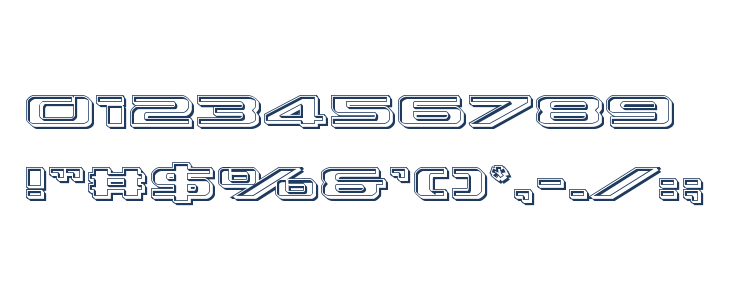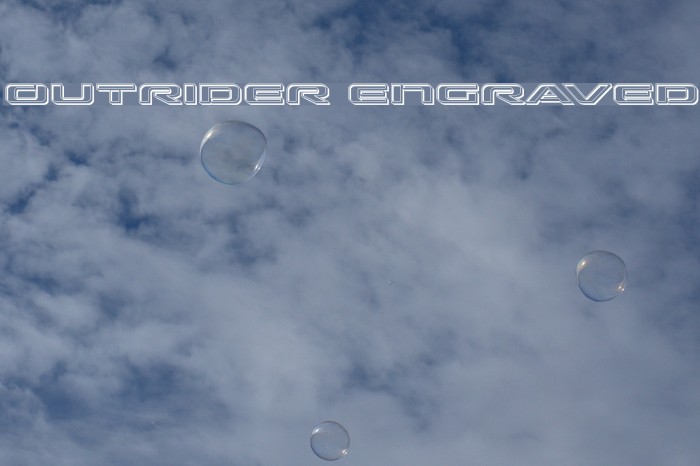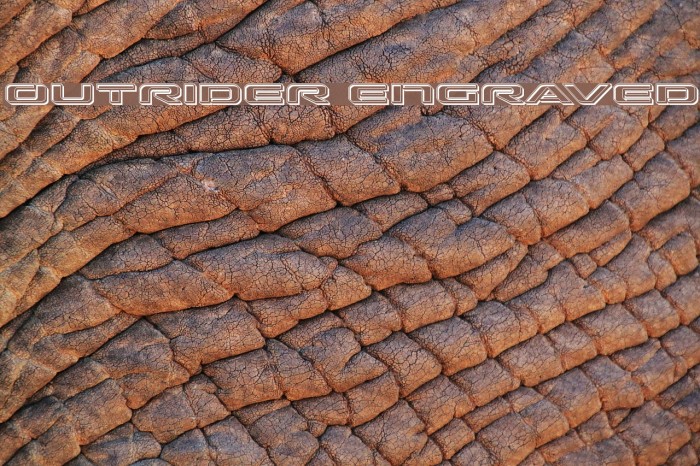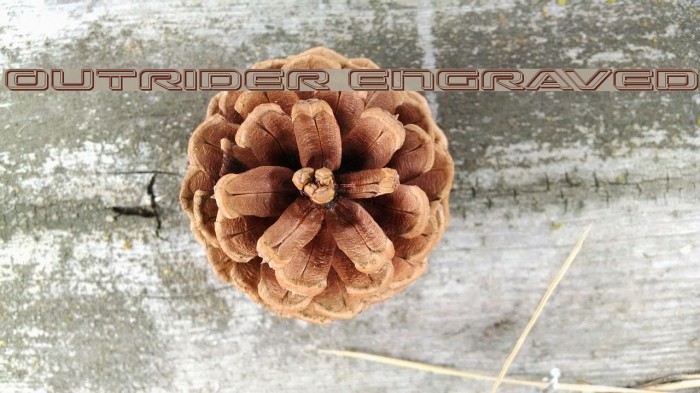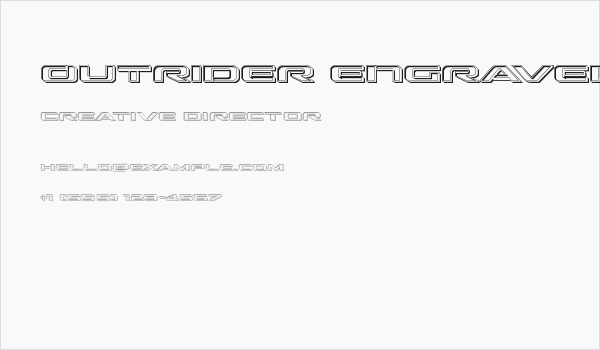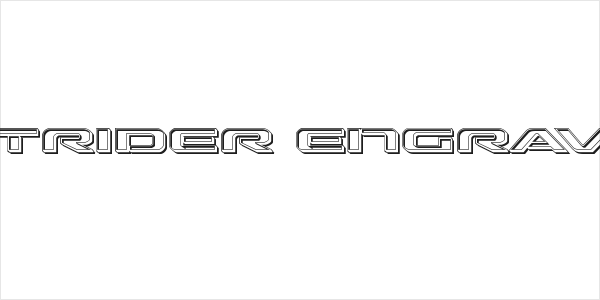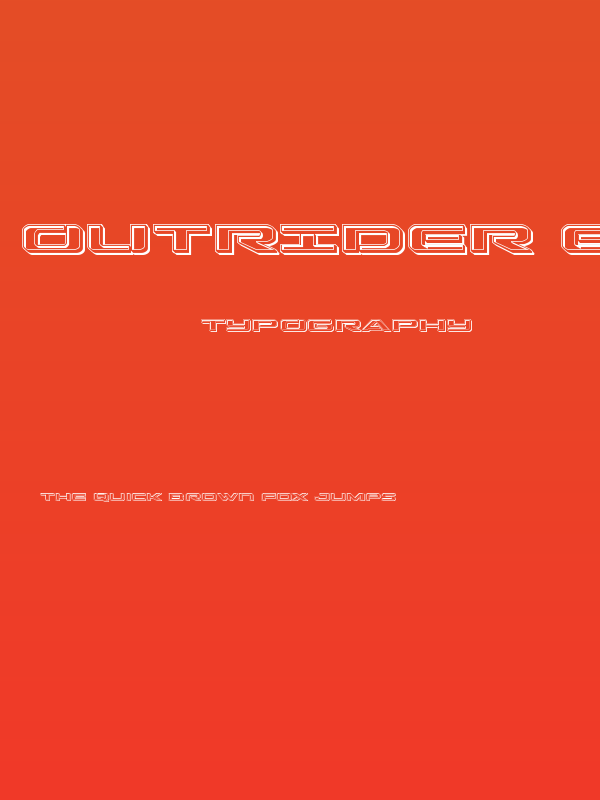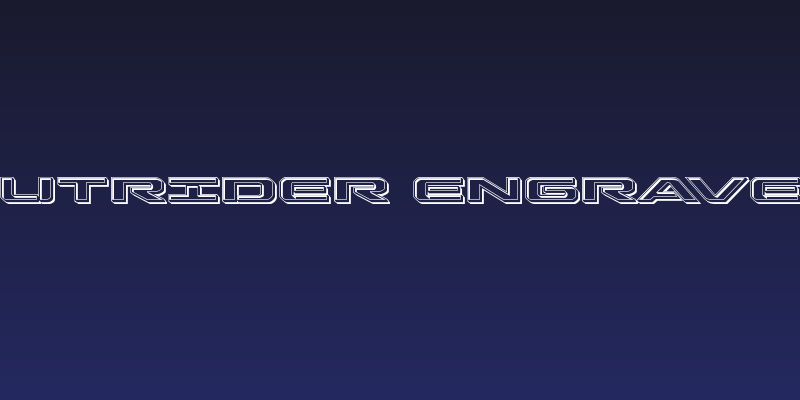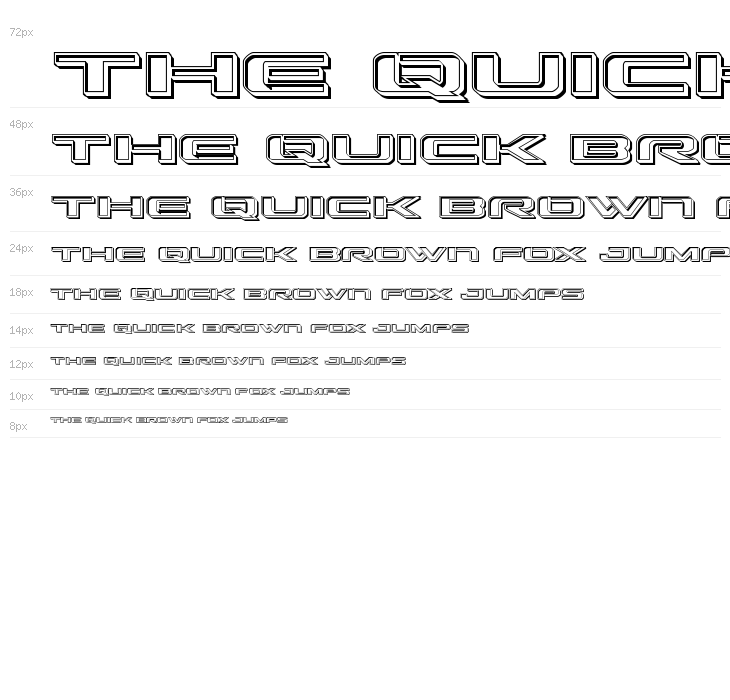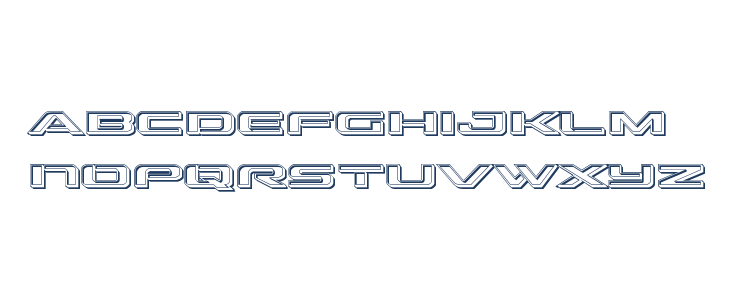
Outrider Engraved Font
Outrider Engraved Description
This font features a bold, futuristic design with a distinct engraved effect. The characters are outlined with a double line, creating a three-dimensional appearance. Each letter and number is crafted with sharp angles and geometric precision, giving it a modern and tech-inspired look. The uppercase and lowercase letters maintain a consistent style, while the numbers and special characters complement the overall aesthetic. This font is ideal for projects that require a strong, impactful visual presence.
| Overall Style | Futuristic |
| Proposed Projects | Ideal for technology branding, sci-fi themed designs, video game titles, and futuristic posters. |